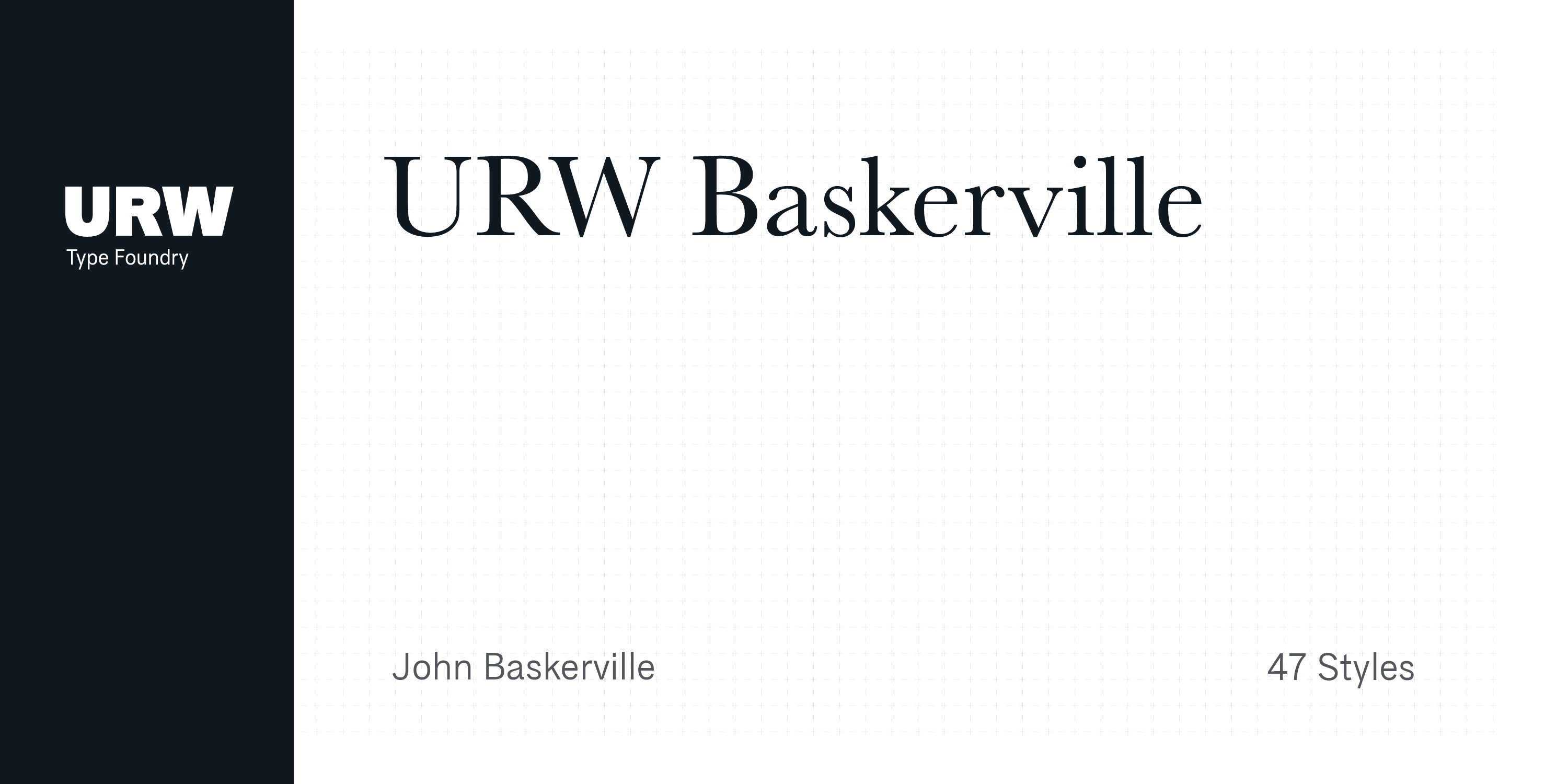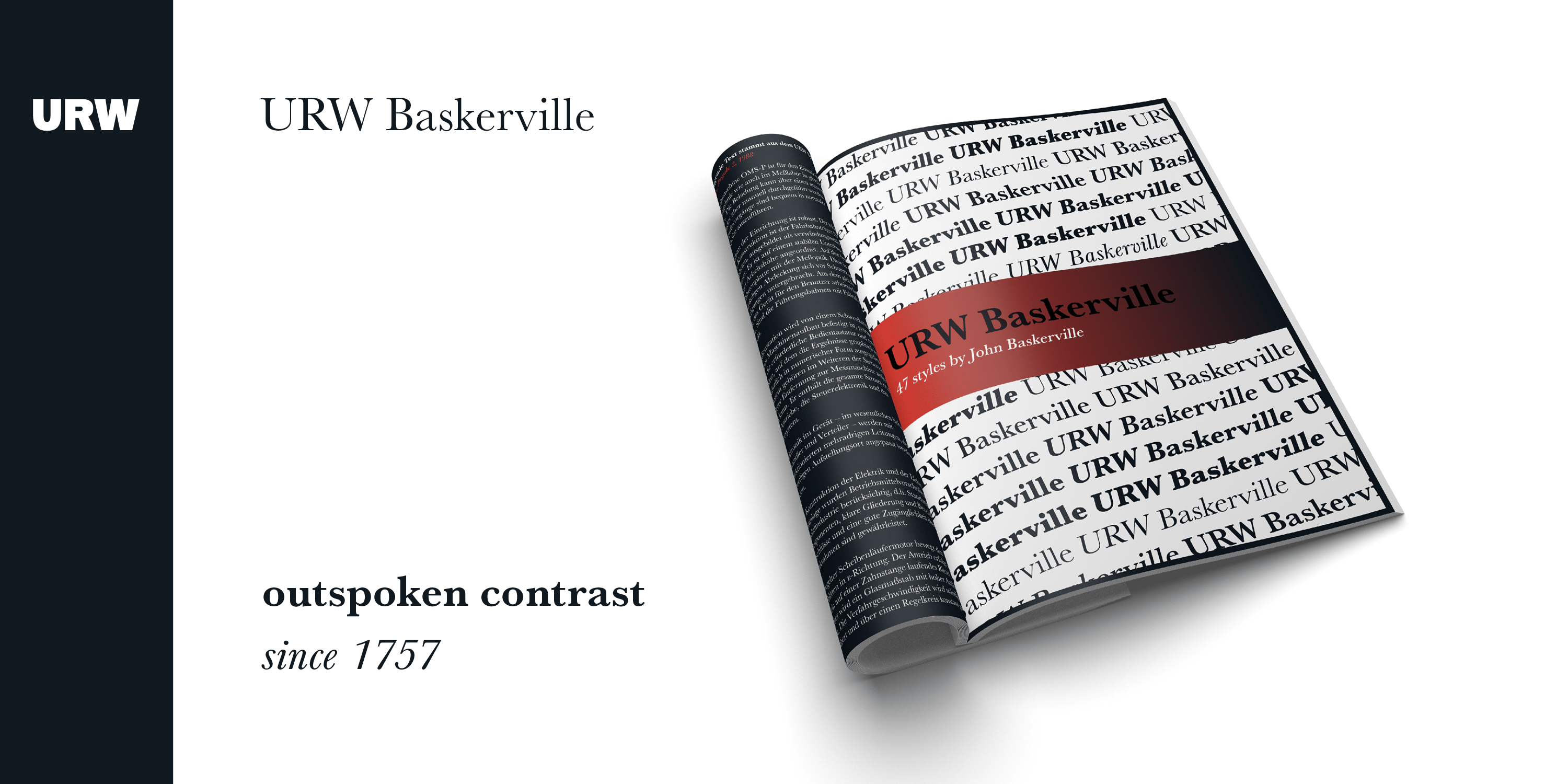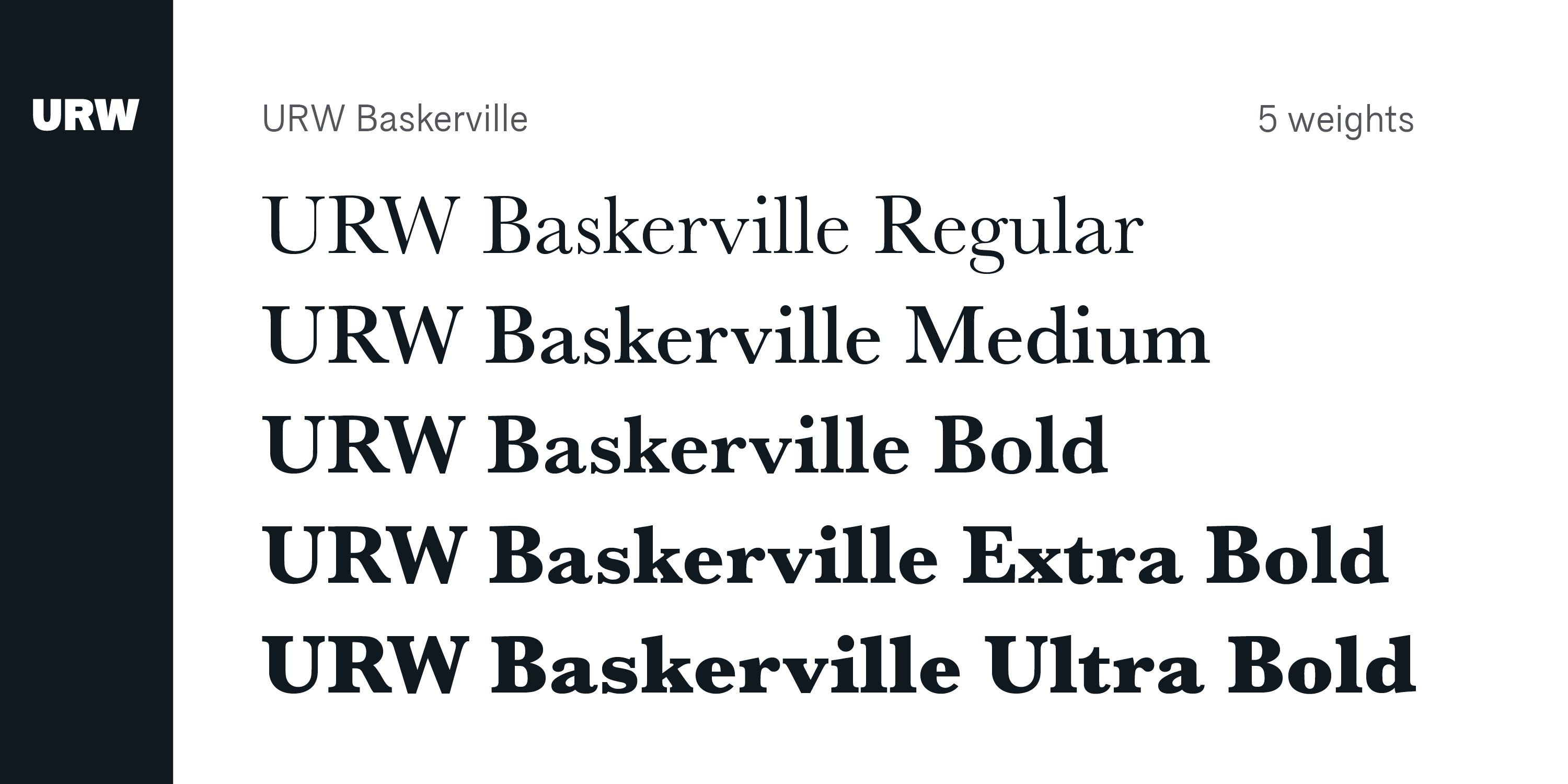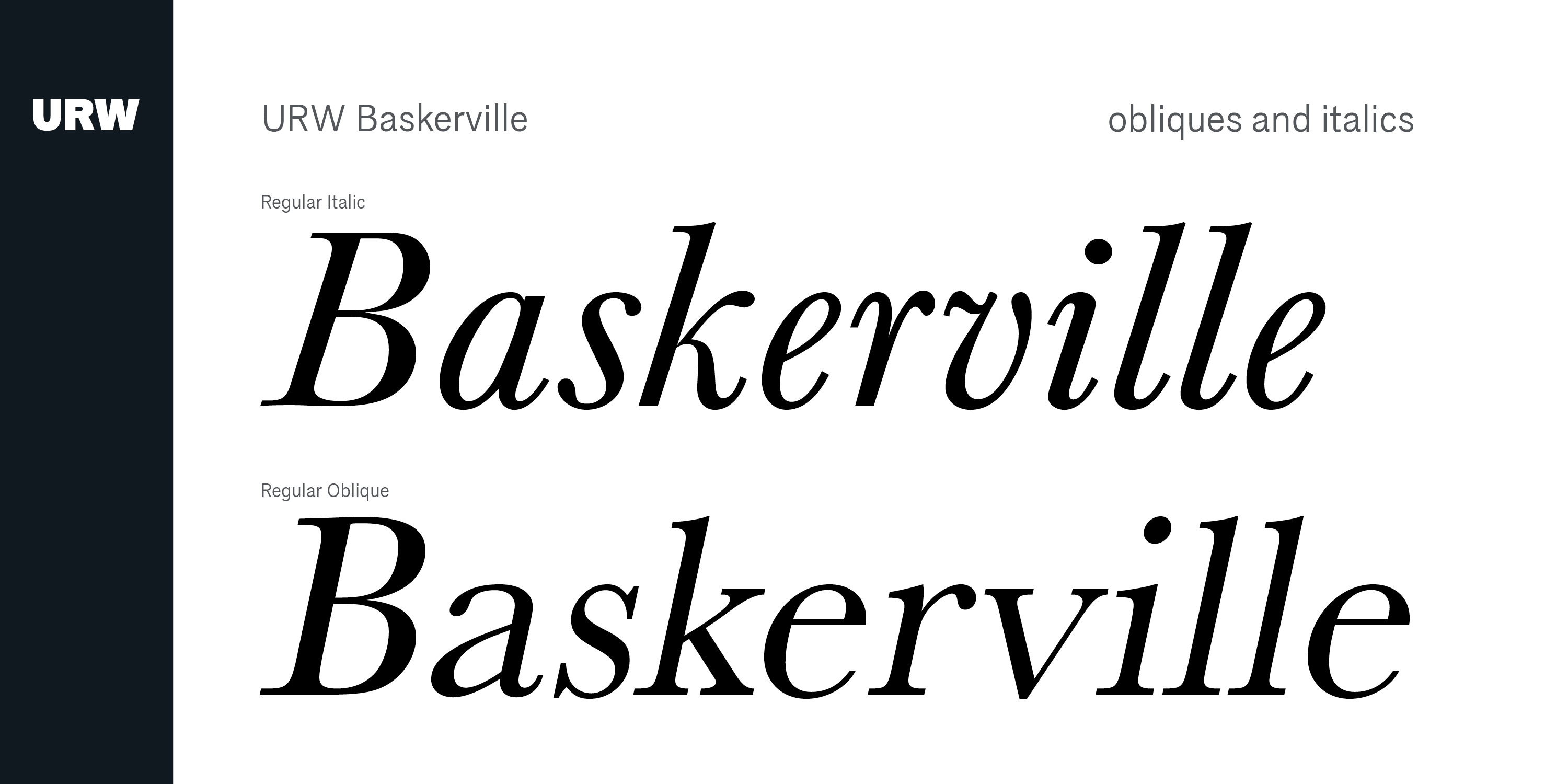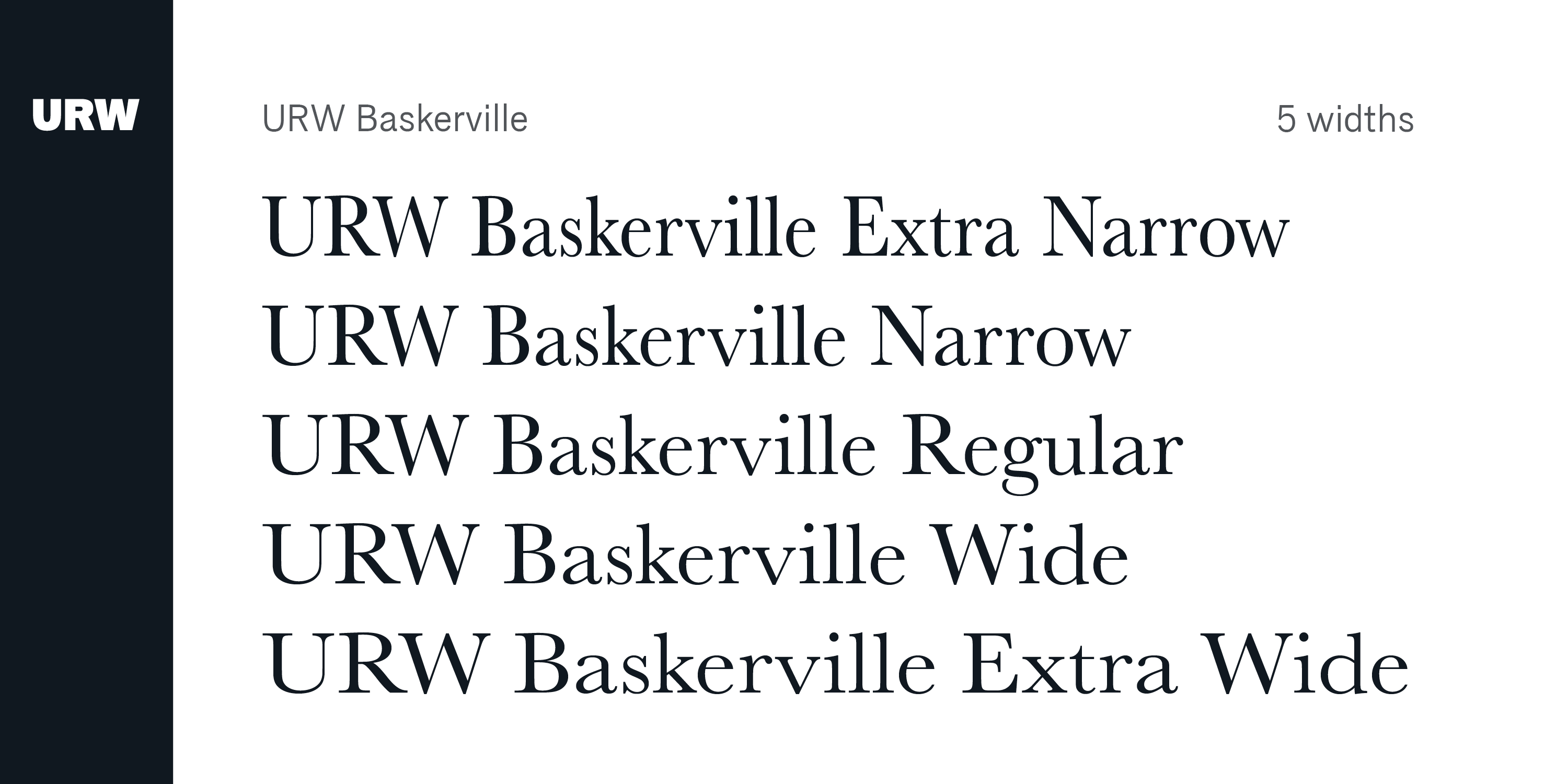
Baskerville
Font Family by URW++
Baskerville is a classic transitional serif with a refined, authoritative presence. Its high contrast, strong vertical stress, and sharp bracketed serifs give it a polished, bookish character that feels equally traditional and elegant.
This 7-style family from URW++ includes Regular, Oblique, Medium, Medium Oblique, Bold, Bold Oblique, and Ultra Bold, giving you a useful range for hierarchy and emphasis. It suits editorial design, book typography, formal headlines, and other display settings where readability and a cultivated tone matter.
Whether you're shaping a sophisticated brand voice or setting text that needs to look established and confident, this family brings the familiar Baskerville feel with options that move from restrained to assertive.